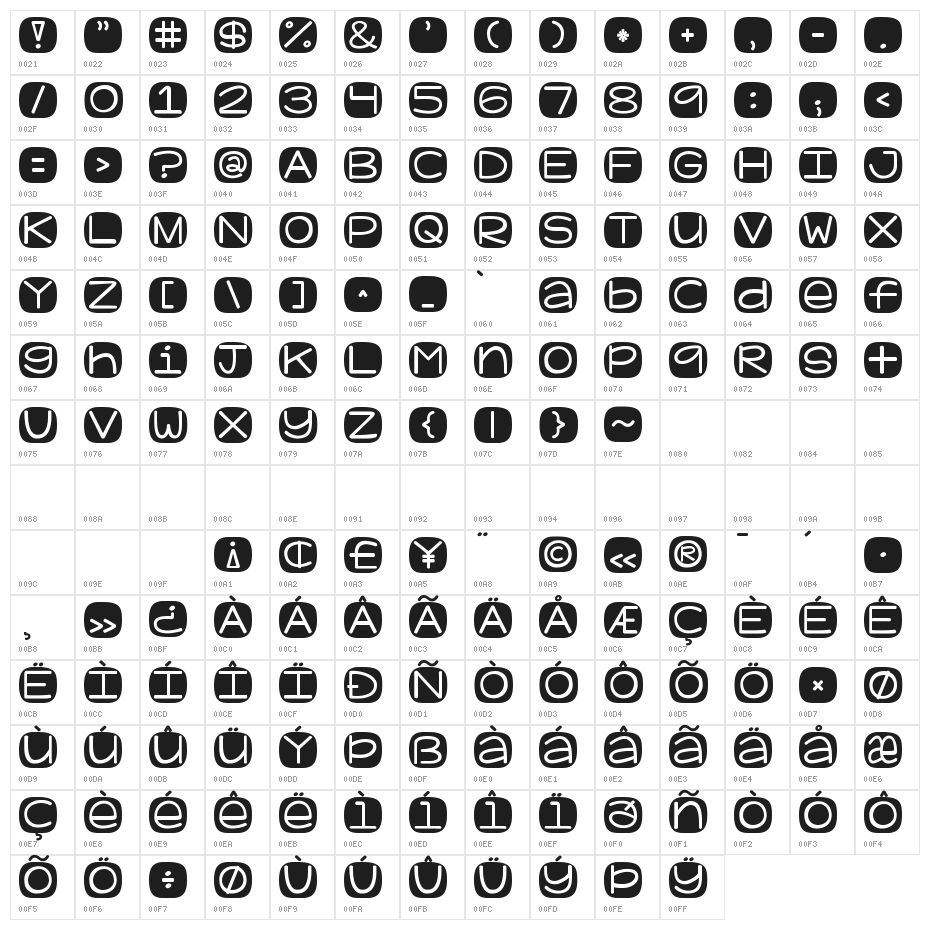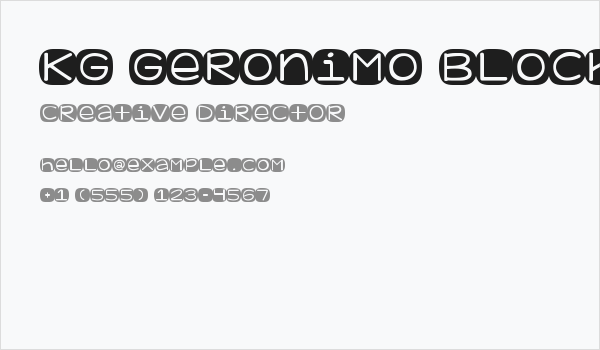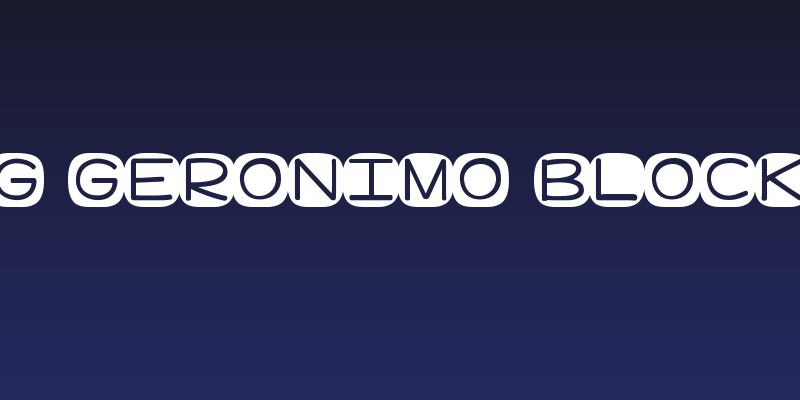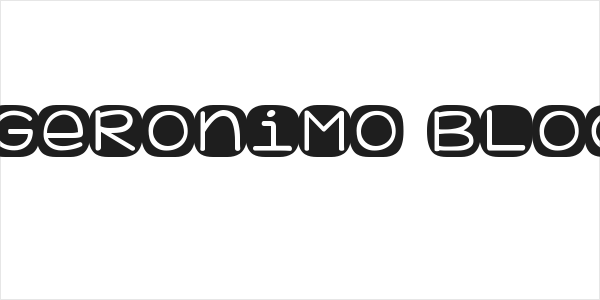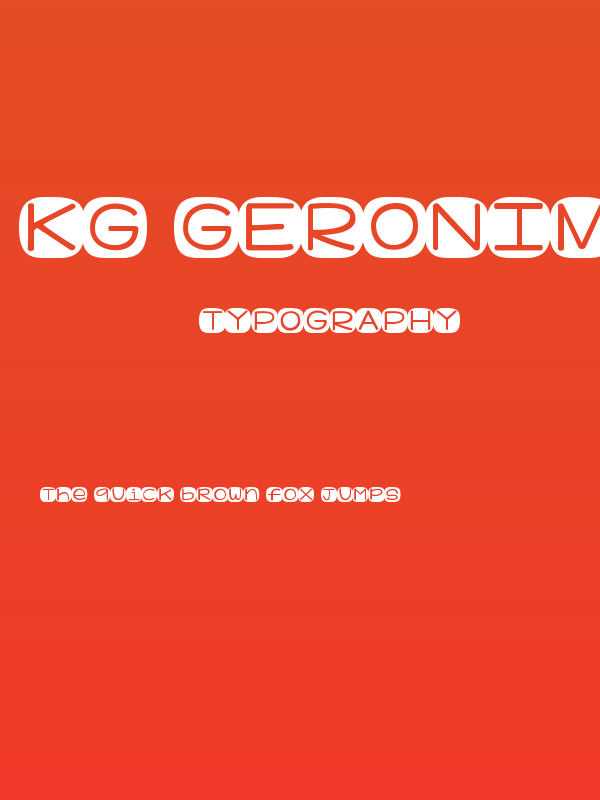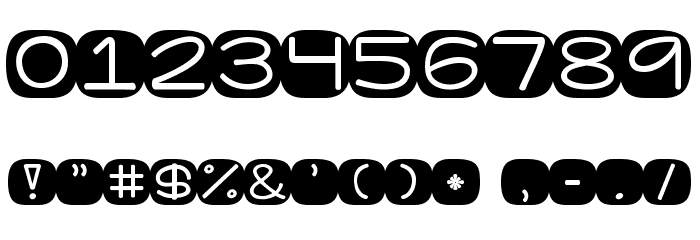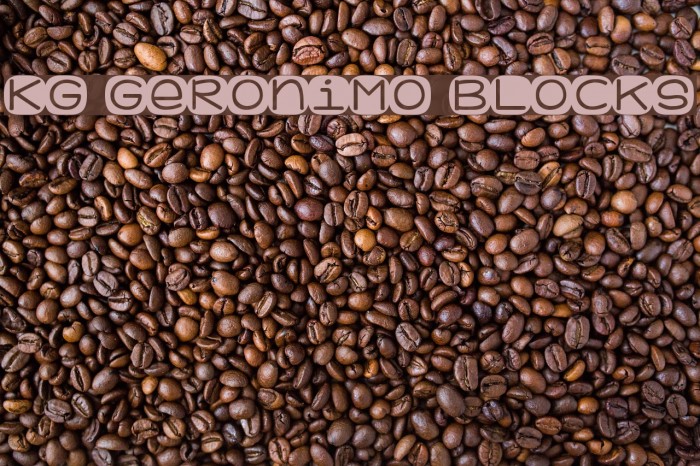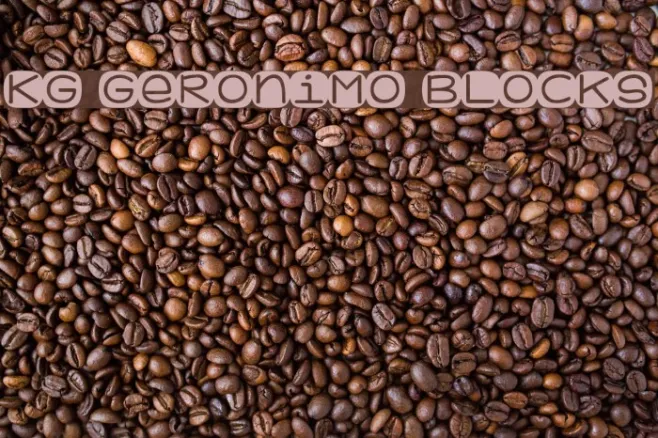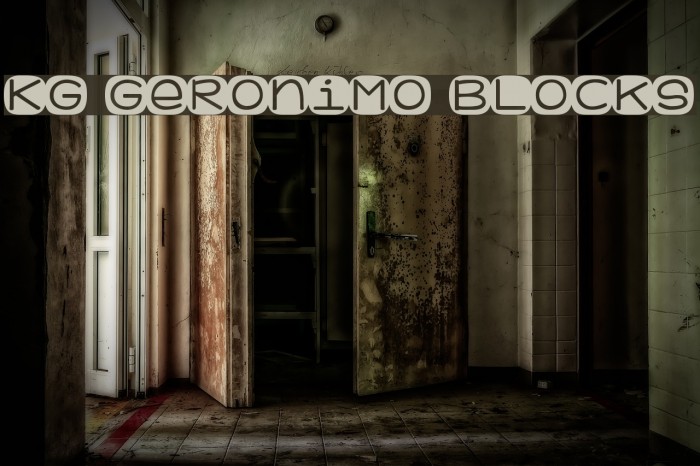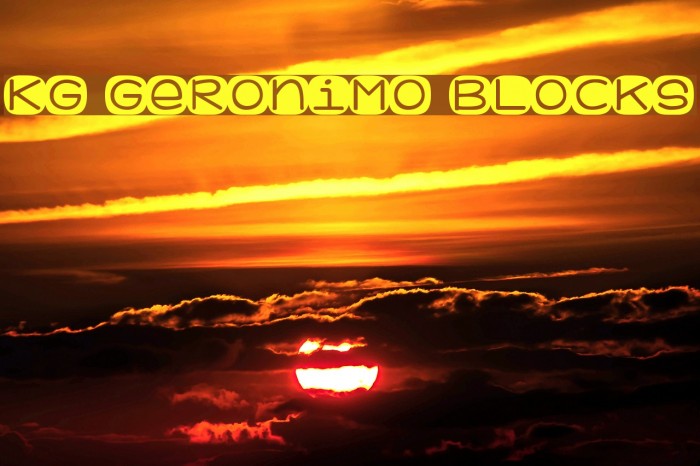
KG Geronimo Blocks Font
KG Geronimo Blocks Description
This font features a bold, playful design with rounded, block-like characters. Each letter is encased in a thick, black outline that gives it a distinct, three-dimensional appearance. The characters are evenly spaced, with a consistent width that enhances readability while maintaining a unique style. The font's design is reminiscent of retro or vintage aesthetics, making it suitable for projects that require a fun and eye-catching look. The uppercase and lowercase letters are consistent in style, with numerals and special characters following the same design principles.
| Overall Style | Retro, Playful |
| Use Case | Logos, Posters, Headlines |
| Proposed Projects | Ideal for children's books, playful branding, posters, and retro-themed designs. |